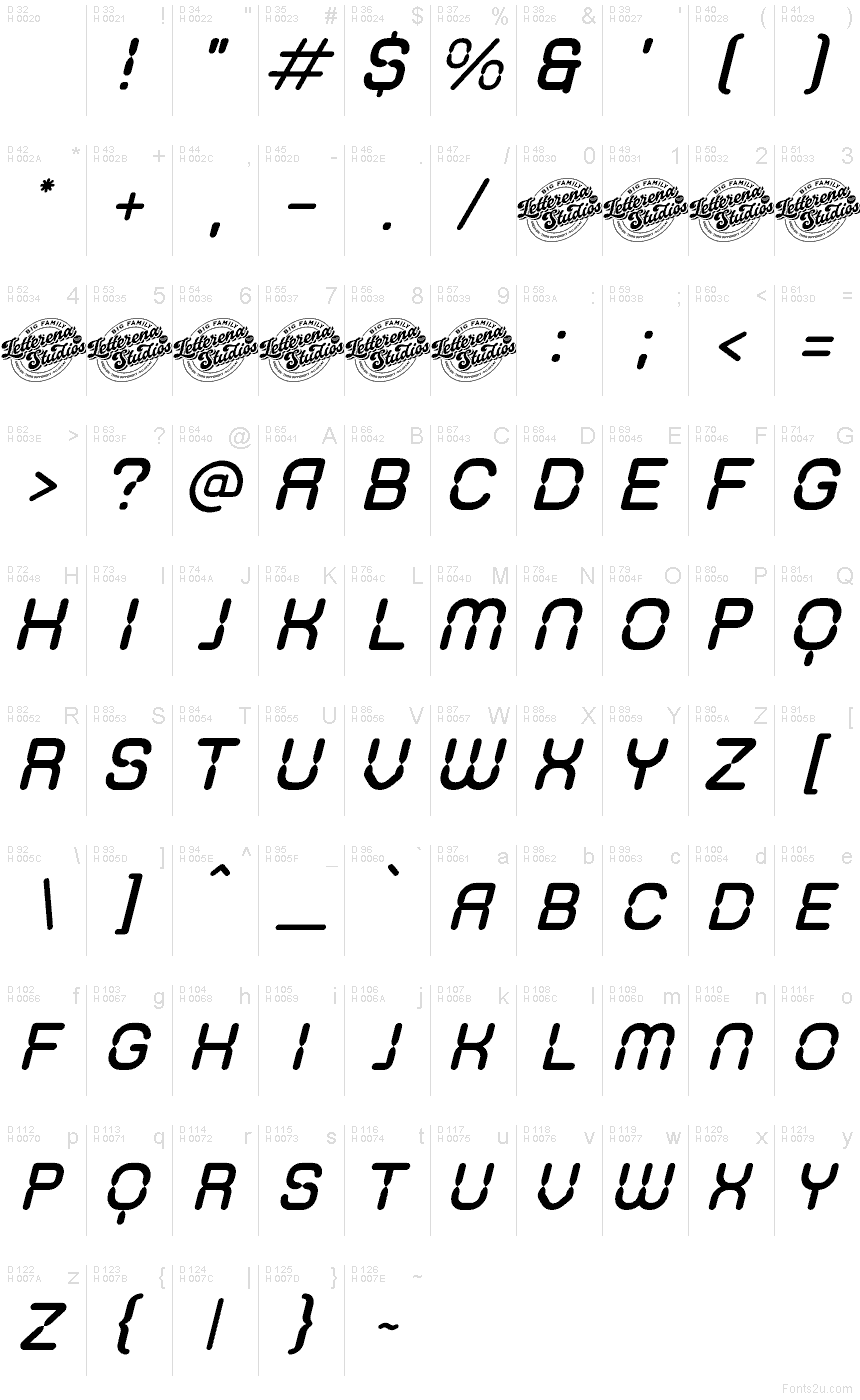
Normens DEMO VERSION Italic
Normens Italic font by Letterena Studios is a free techno display font built with a modern style and smooth geometric curves. Its wide forms are futuristic and minimalist, projecting a contemporary appeal perfect for the future-forward brand with big ideas. This design recalls typographic trends from the 1900s yet retains an identity of its own.
Our recommendation is to use this font in banners, posters, websites, social media pages or posts. It can be ideal for all purposes related to branding and company identities including logo designs, business cards, labels etc. Experiment with it on flyers and presentation designs as well!